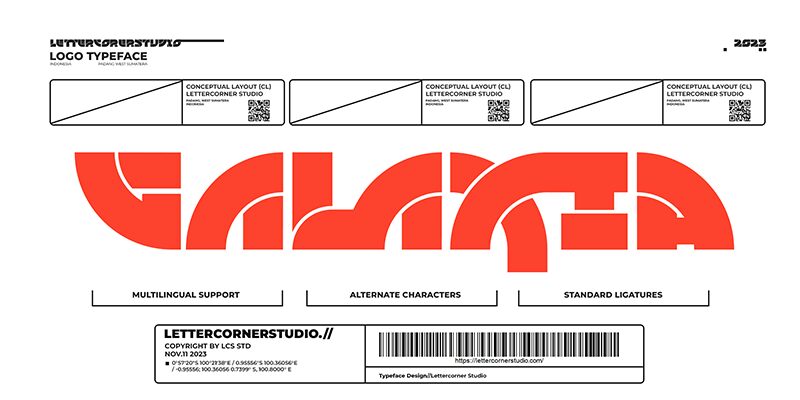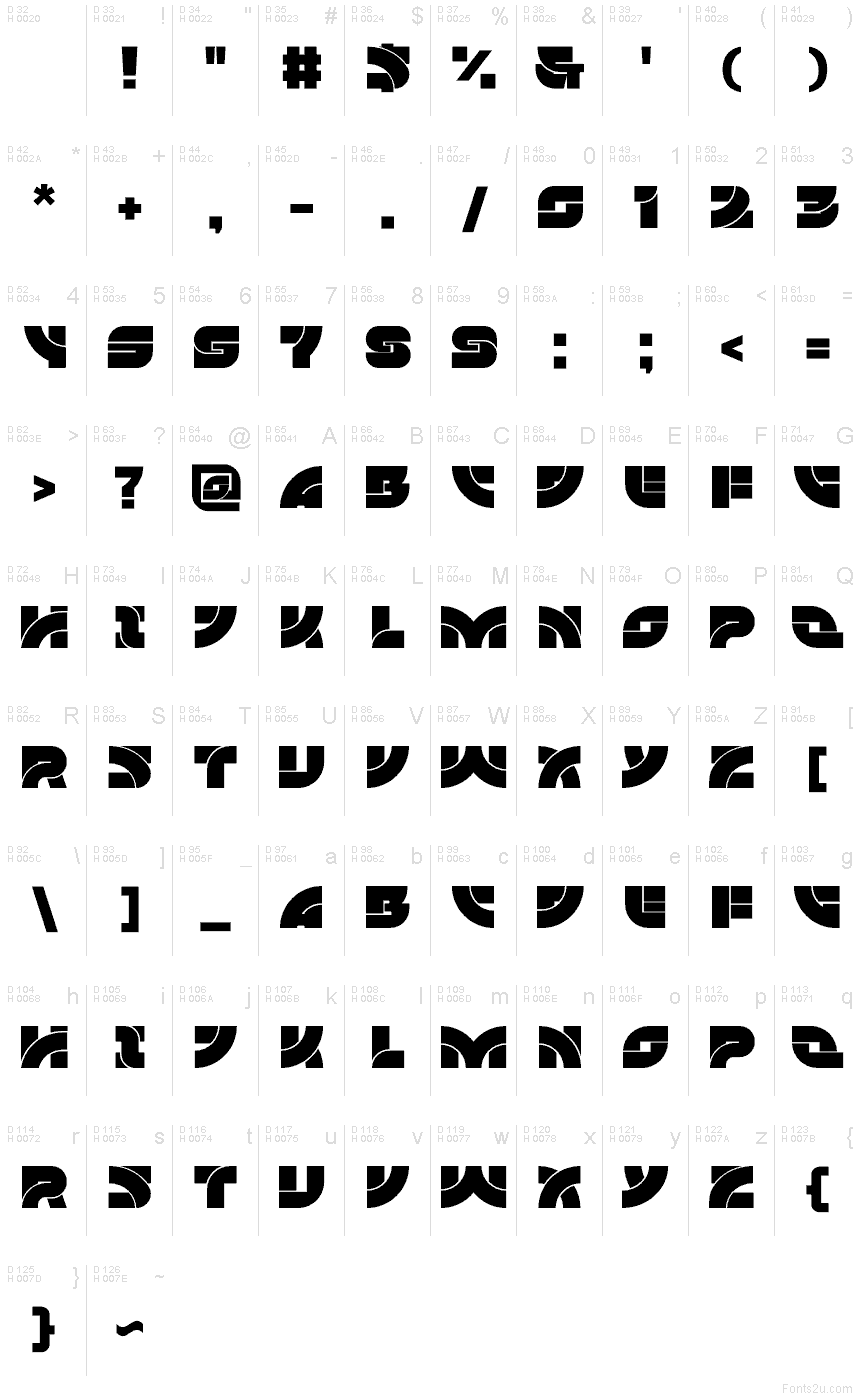
Galaxia font by Mocha Frappuccino is a free futuristic display font built around bold modular curves and sliced blocks. Its defining move is the crisp inner arc that reads like a neon inlay, carving highlights through heavy, rounded forms. The result feels orbital and kinetic—quarter circles lock into monolithic slabs, creating a forward-thrusting rhythm that reads cleanly at a glance while still looking engineered and high-tech.
Using Galaxia, headlines gain that glossy sci‑fi edge for game titles, tech event posters, esports branding, synthwave album covers, device packaging, and YouTube/Twitch graphics. The generous shapes and smart gaps punch through busy backgrounds, keeping impact at large sizes. Pair this free font with a quiet, neutral sans for body copy and let the arcs do the talking.